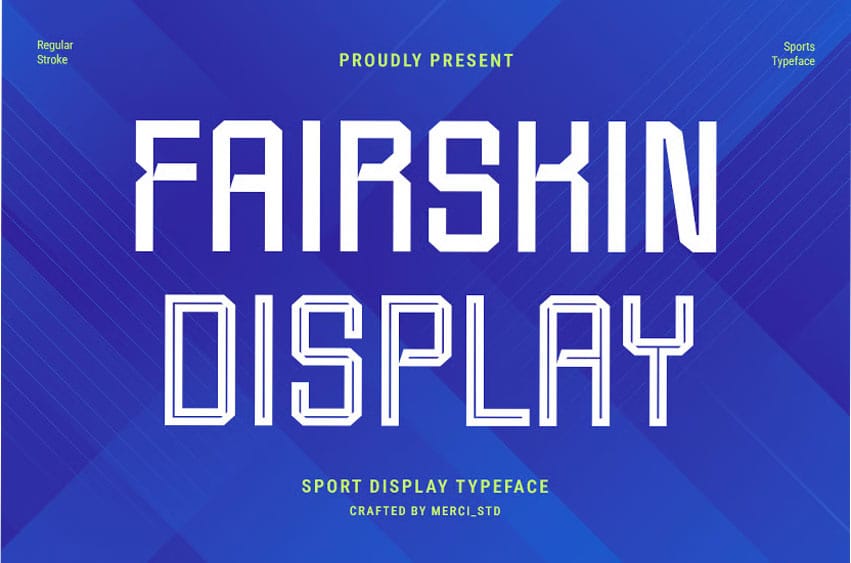
Fairskin Font is a modern sport display typeface with clean geometric shapes and sharp edges. Designed for athletic branding, esports, headlines, and dynamic visual projects.
- Unique Hand-Drawn Style